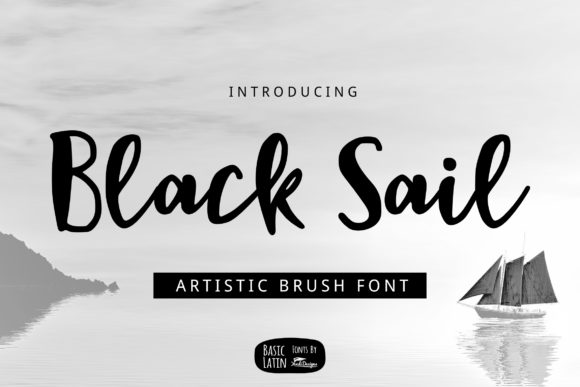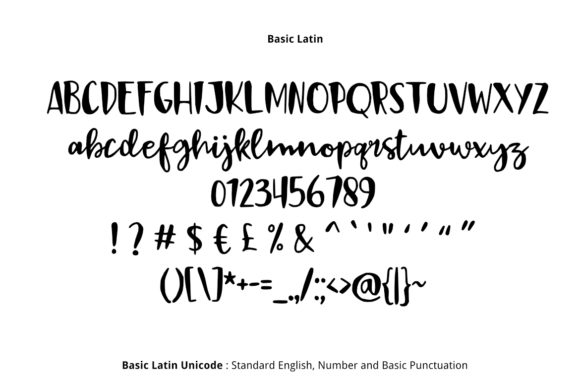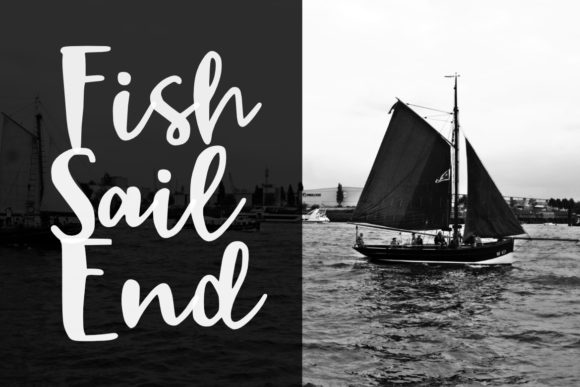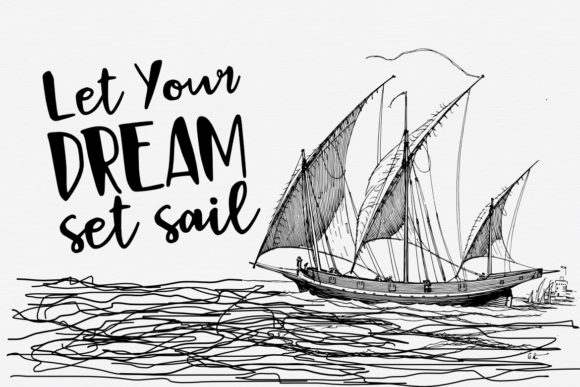
HomeScript FontsBlack Sail Font Script Fonts Black Sail Font FacebookXPinterestWhatsApp Black Sail Font Poster 2 Black Sail Font Poster 3 Black Sail Font Poster 4 About Black Sail Font Black Sail is a simple, yet playful script full of authenticity. Get inspired by its personal charm! DOWNLOAD ON CREATIVE FABRICAThis font is sold and delivered by Creative Fabrica. Font Canyon may earn a commission if you buy through this link. People also explored Fisherman Font Spunky Font Jenyta Font Harvest Font Grover Font Merry Christmas Font Burrata Font Simply Font Sweet Christmas Monogram Font 292 0 TagsBlack Sail Font Previous articleWrist Hand FontNext articleReality Font LEAVE A REPLY Cancel reply Comment: Please enter your comment! Name:* Please enter your name here Email:* You have entered an incorrect email address! Please enter your email address here Website: Save my name, email, and website in this browser for the next time I comment. Personal Use Free Bajt Rounded Personal Use Free Read more about this font Scoothlane Personal Use Free Read more about this font Andolas Personal Use Free Read more about this font Sushi Day Personal Use Free Read more about this font BLOG Using Fonts in Digital Marketing: Tips to Strengthen Your Brand Identity In the realm of digital marketing, every visual element plays a crucial role in shaping a brand's identity, and fonts are no exception. The... Where to Buy American Fonts Online in 2024 How to Cut Any Font on Cricut: Convert a Font to SVG (Free) Free Fonts Risk: Why Free Fonts Can Be Dangerous for Designers